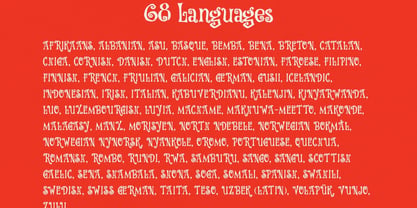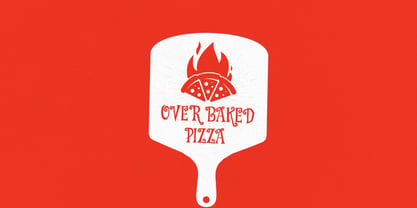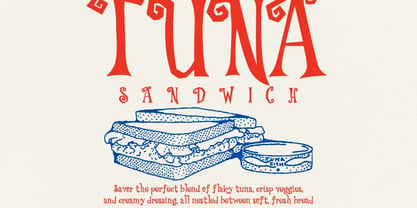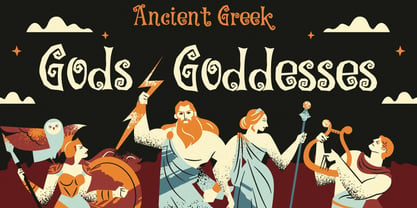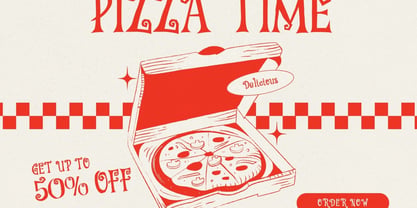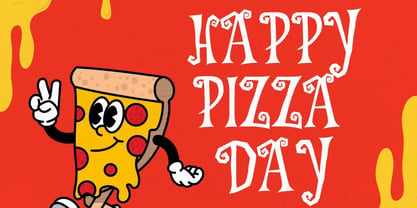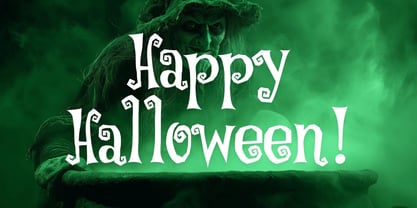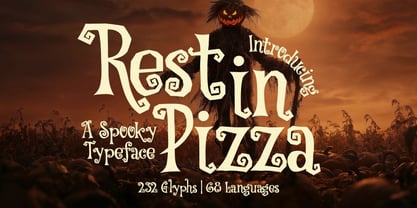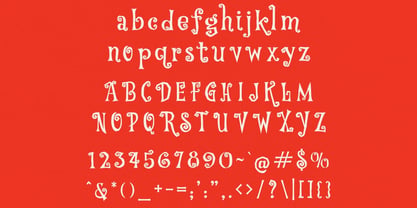
Rest in Pizza
The Rest in Pizza Font Family was designed by Igor Ovsyannykov and published by Hipfonts. Rest in Pizza contains 1 styles. More about this family
Say hello to Rest in Pizza, a delightfully quirky and spooky typeface that blends Halloween charm with ancient Greek-inspired styling. This one-of-a-kind font delivers the perfect mix of eerie personality and playful character, making it an unforgettable choice for designers who love the strange, the charming, and the unexpected. With 232 unique glyphs and support for 68 languages, Rest in Pizza gives you the creative freedom to craft hauntingly fun titles, menus, posters, and brand visuals that stand out from the crowd. Its letterforms echo the bold, chiseled style of Greek inscriptions—reimagined through a whimsical, spooky lens that brings humor and character into every curve. Perfect for Halloween projects, horror graphics, restaurant and pizzeria menus, quirky branding, party invitations, posters, merchandise, and themed events, this typeface adds a playful sense of the supernatural while still feeling cohesive and stylish. Whether you're designing a haunted house brochure or a cheeky pizza shop menu, Rest in Pizza serves up the perfect balance of fright, fun, and flavorful Greek-inspired flair.